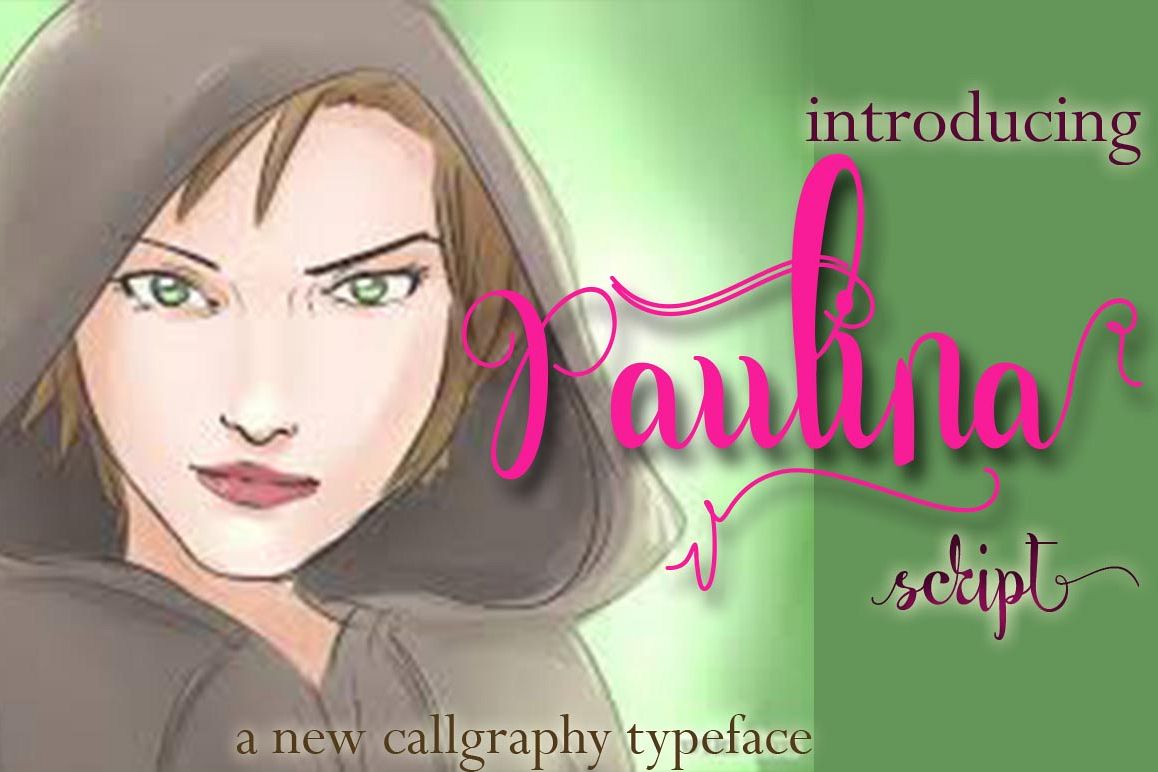
Paulina
Paulina is a font that made the hand by having the character up and down like a dancer. Paulina has a very unique style of calligraphy, it is very suitable for use in the work of modern design.
The Features of this fonts is:
• Standart ligatures
• swash
• PUA Unicode (Private Use Areas)
Can be used for various purposes.such as headings, logos, wedding invitation, t-shirt, letterhead, lable, news, posters, badges etc.